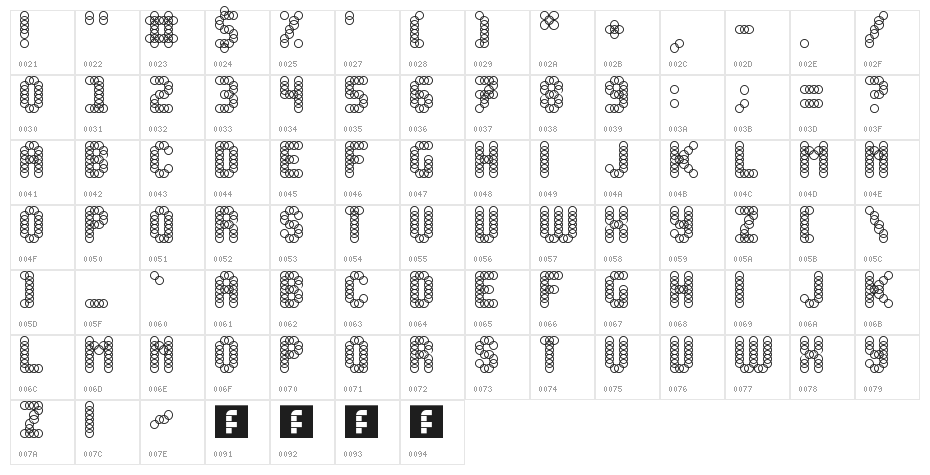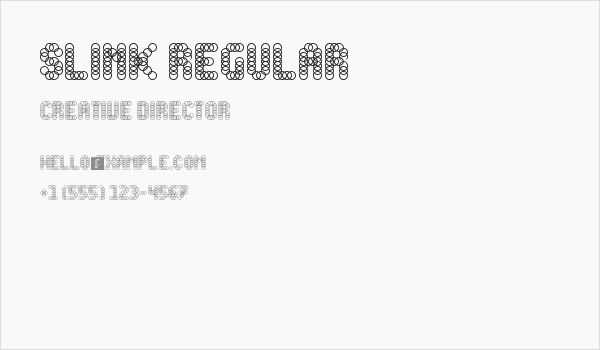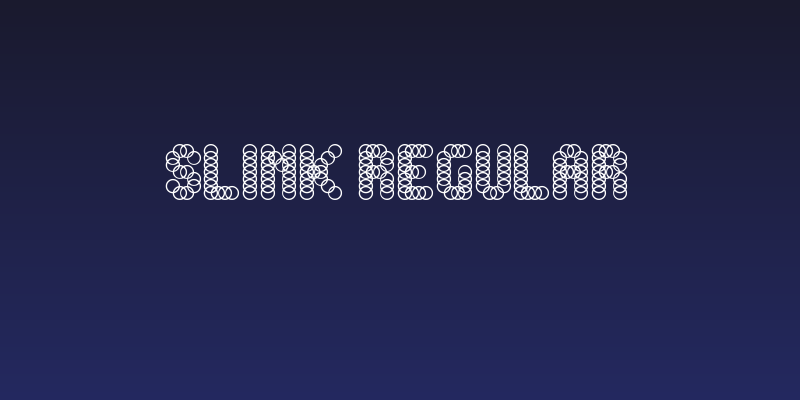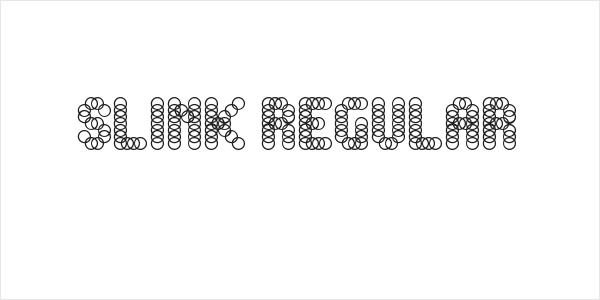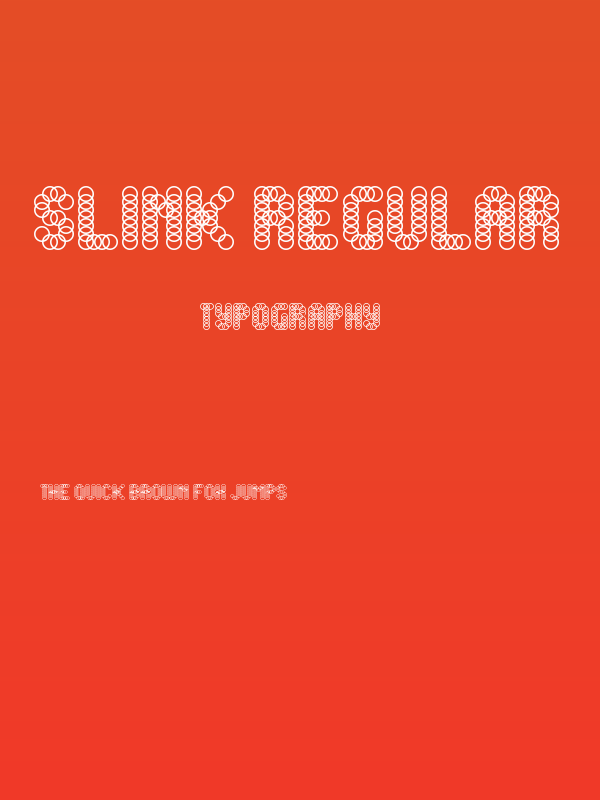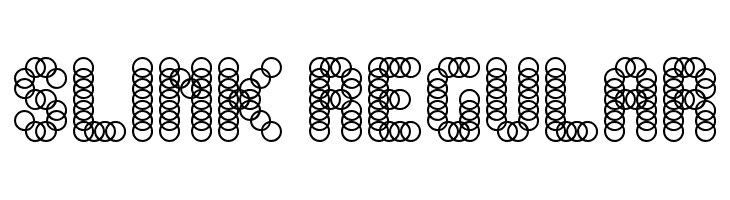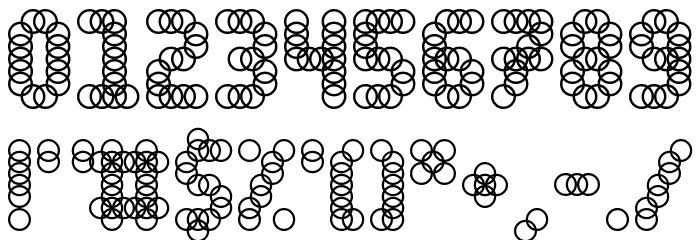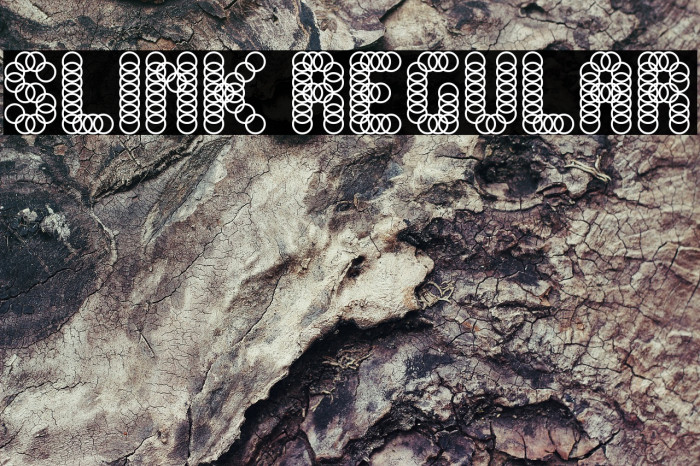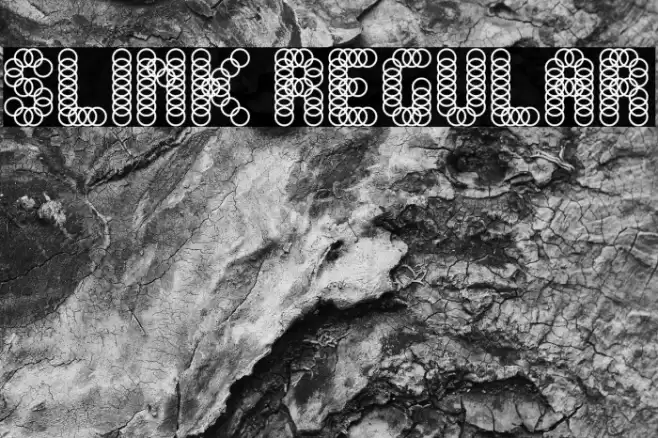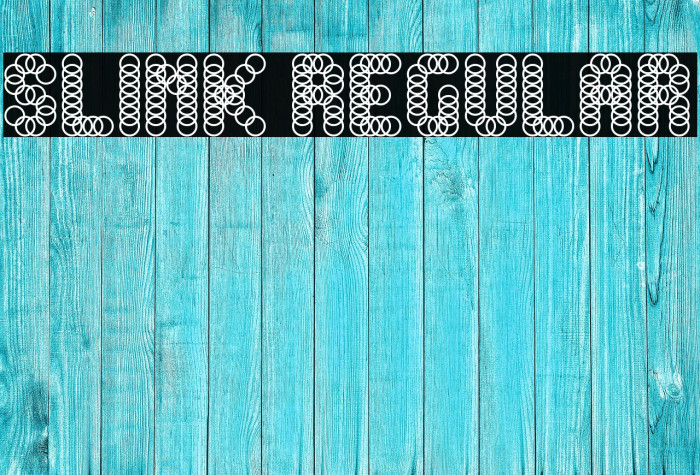
Slink Regular Font
| おすすめプロジェクト | Ideal for creative projects such as posters, invitations, children's books, and branding that seeks a playful and artistic touch. |